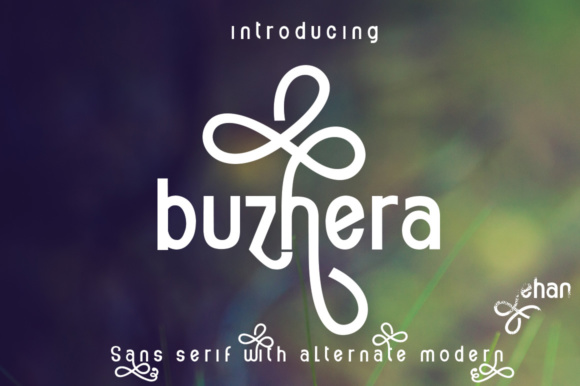
The Buzhera Font: A Simple yet Elegant Sans Serif for Your Creative Projects
I’ll never forget the time I was working on a branding project for a new coffee shop. My client wanted a clean, modern look that would appeal to a young audience, but I was struggling to find the right font. That’s when I stumbled upon the Buzhera font – a simple and elegant sans serif that instantly caught my attention. In this article, I’ll share my experience with Buzhera, its features, and how to make the most of it in your creative projects.
An Honest Review of Buzhera Font
As a designer, I’m always on the lookout for fonts that are both functional and aesthetically pleasing. Here’s my take on Buzhera:
What I Love About Buzhera
• ✨ Simple and elegant design that’s perfect for modern projects
• ✅ Great for both digital and print projects
• ✅ Works well with a variety of design styles, from minimalist to bold
While Buzhera is an excellent font, there are a few things to keep in mind:
• ⚠️ Limited glyphs and OpenType features compared to other fonts
• 🤔 May not be the best choice for projects that require a lot of decorative elements
The Story Behind Buzhera
Buzhera was designed by a team of typographers who wanted to create a simple yet elegant sans serif font. The font was inspired by modernist design principles and is characterized by its clean lines, simple shapes, and elegant curves.
What is the Buzhera font? Buzhera is a simple and elegant sans serif font designed for modern projects.
In conclusion, Buzhera is a versatile and elegant sans serif font that’s perfect for a wide range of creative projects. Its simple design, high legibility, and OpenType features make it a great choice for designers, crafters, and creative hobbyists. By following the tips and guides outlined in this article, you can make the most of Buzhera and take your designs to the next level.